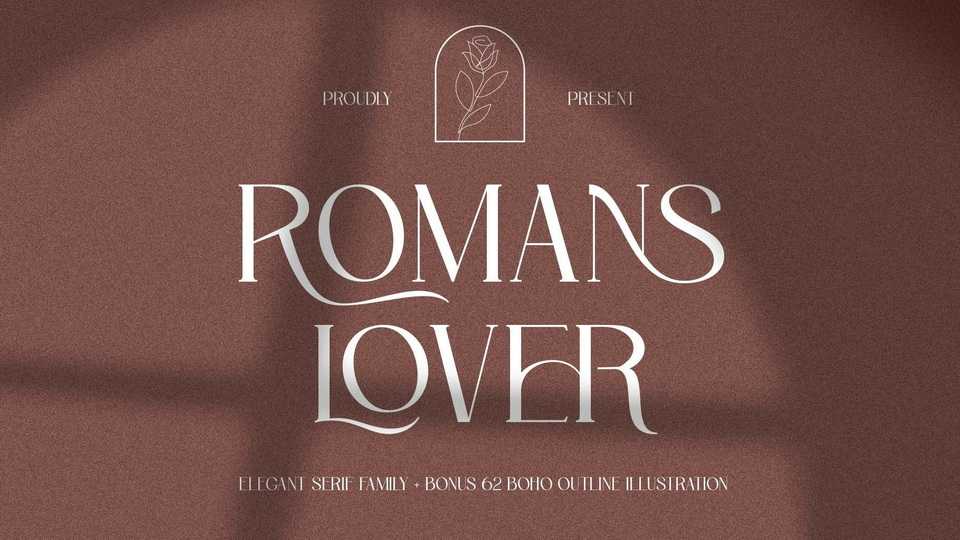
Download Romans Lover font, an elegant serif font that features a dynamic style. The details of the shape of the Roman Lover are very smooth and flow to create unique and beautiful curves.